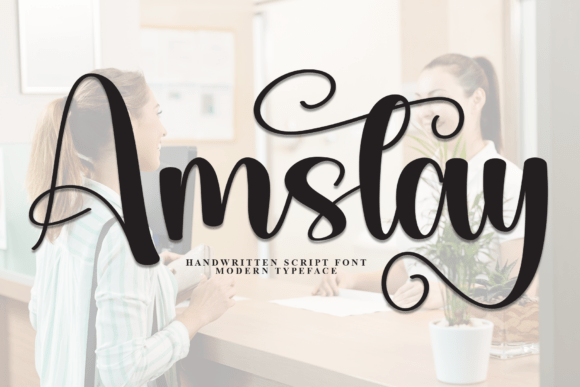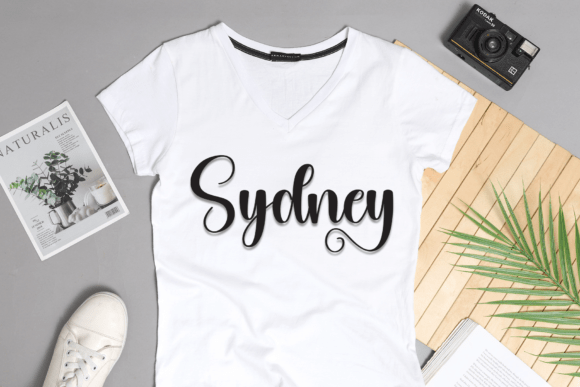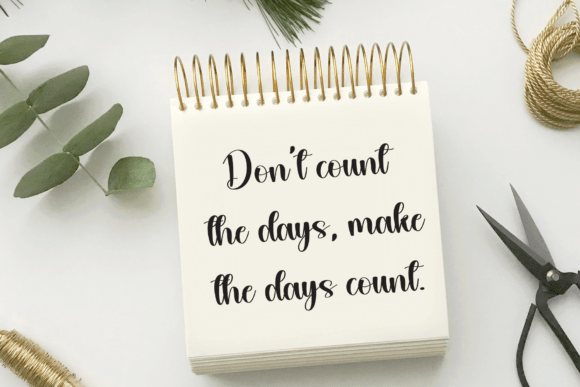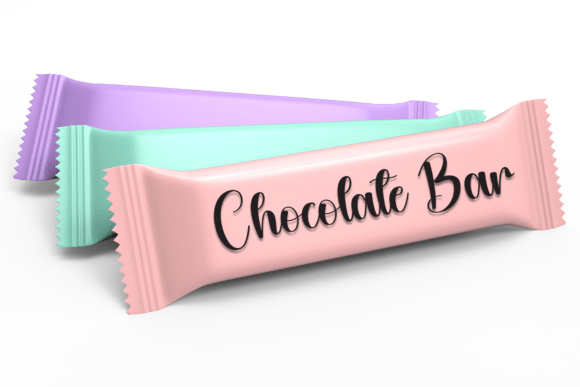
Amstay Font: Elegant Handwritten Script for Branding & Logo Design
About the Amstay Font
Meet Amstay Font, a stunning font that brings a touch of elegance and professionalism to any design. Amstay is a stylish handwritten script font that blends modern elegance with a playful touch. Its fluid strokes and charming curves bring a personal feel to any design. Ideal for logos, packaging, and invitations, this typeface adds warmth, sophistication, and creativity to every project.